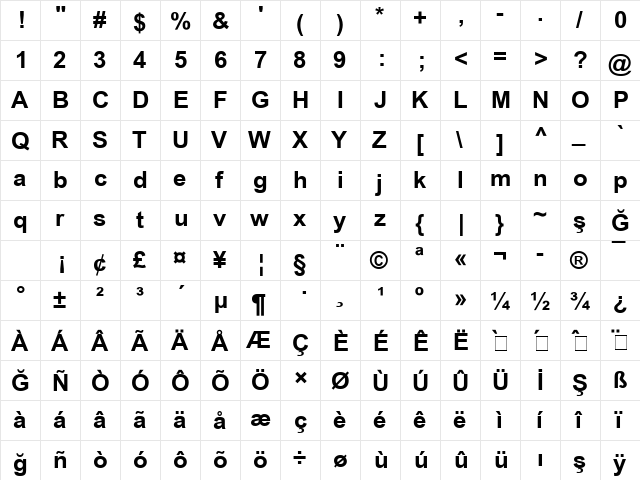
Arial2 Bold Turkce
Design Context for Arial2 Typeface
Arial2 offers clean, dependable letterforms without strong stylistic allegiance, making it a practical choice for designers who need flexibility. Its bold stroke weight gives it real presence on the page.